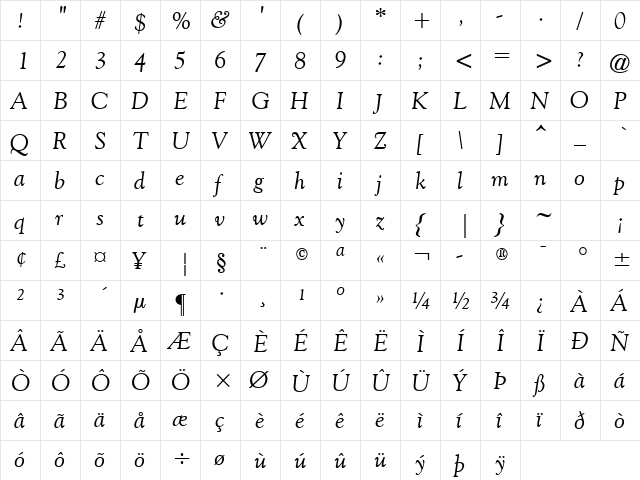
Goudy Old Style CG ATT Italic
Design Context for Goudy Old Style CG ATT Typeface
Goudy Old Style CG ATT is a composed and adaptable typeface that performs quietly and consistently across a wide range of design contexts. Its italic angle brings a sense of urgency and motion to the letterforms.
Pro Tip: Use Goudy Old Style CG ATT for emphasis, pull quotes, and subheadings where its slanted energy can add rhythm to the layout.